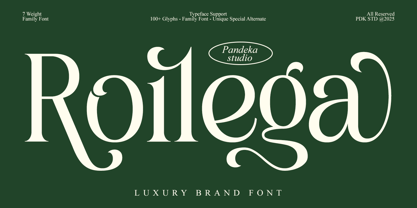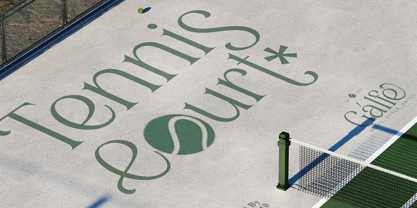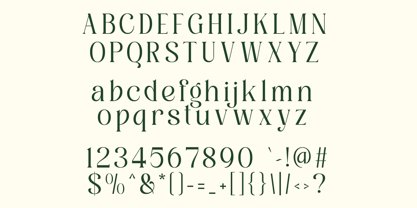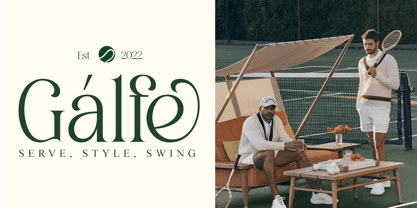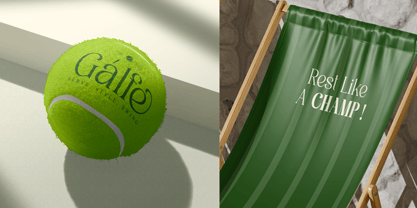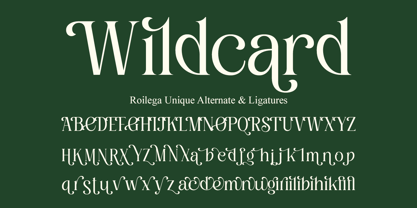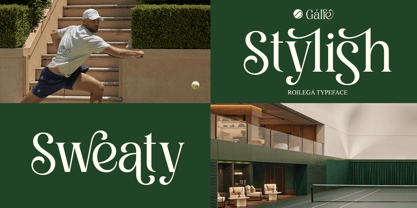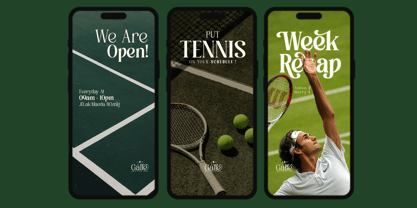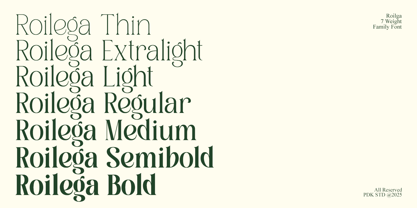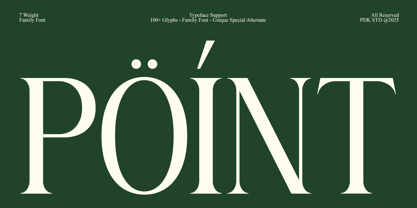
Roilega is a refined luxury serif family font crafted for premium branding, editorial design, packaging, and high-end visual identities. Its smooth curves, elegant contrast, and timeless proportions deliver a polished and sophisticated aesthetic suitable for both modern and classic brands.
Featuring 7 styles — Thin to Bold — plus a fully adjustable Variable Font, Roilega allows designers to customize weight seamlessly for print, digital, and responsive layouts. This flexibility makes it ideal for cohesive brand systems, typographic hierarchy, and multi-platform design workflows in Figma, Illustrator, Photoshop, and web environments.
With 68+ stylistic alternates and ligatures, Roilega offers expressive possibilities for custom logotypes, boutique branding, luxury packaging, wedding design, and editorial titles. Every character is crafted to bring clarity, elegance, and a bespoke premium feel to your typography.
• 7 Styles Family: Thin, Extra Light, Light, Regular, Medium, Semi Bold, and Bold
• Full Character Set: Uppercase, lowercase, numbers, symbols, and punctuation
• 68+ alternates and ligatures
Roilega